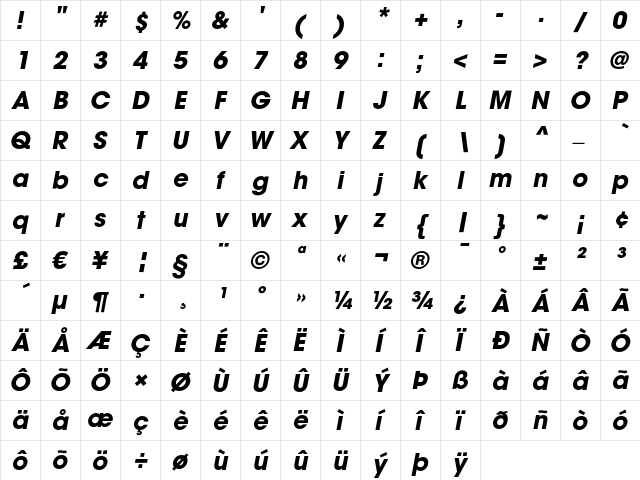
ITC Avant Garde Gothic LT Bold Oblique Font Preview
Design Context for ITC Avant Garde Gothic LT Typeface
ITC Avant Garde Gothic LT has the quiet confidence of well-executed sans-serif typography: versatile, unobtrusive, and dependable at any size. Its italic angle brings a sense of urgency and motion to the letterforms. Its bold stroke weight gives it real presence on the page.
Well-suited to navigation labels, product packaging, and anywhere legibility at scale is essential.
Font Pairing: Use ITC Avant Garde Gothic LT for headlines alongside a lighter-weight sans or serif for body copy to establish clear visual hierarchy.
Pro Tip: Use ITC Avant Garde Gothic LT with generous tracking and line-height for the most luxurious effect — light sans-serifs reward spacious, considered layouts.